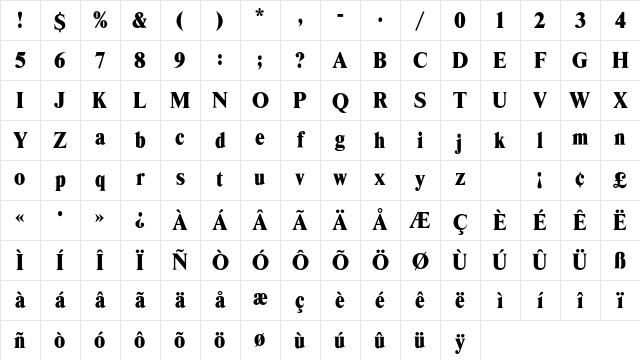
TimesModernEF Regular
Design Context for TimesModernEF
TimesModernEF is a composed and adaptable typeface that performs quietly and consistently across a wide range of design contexts.